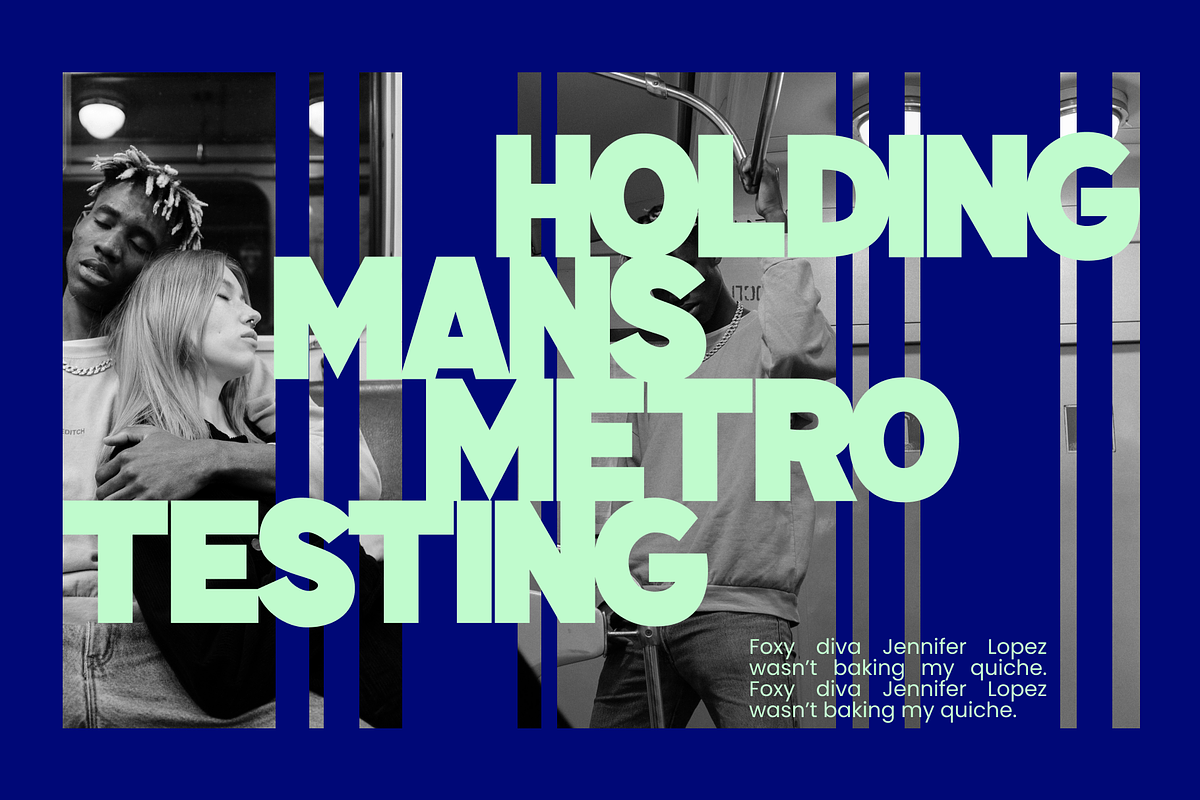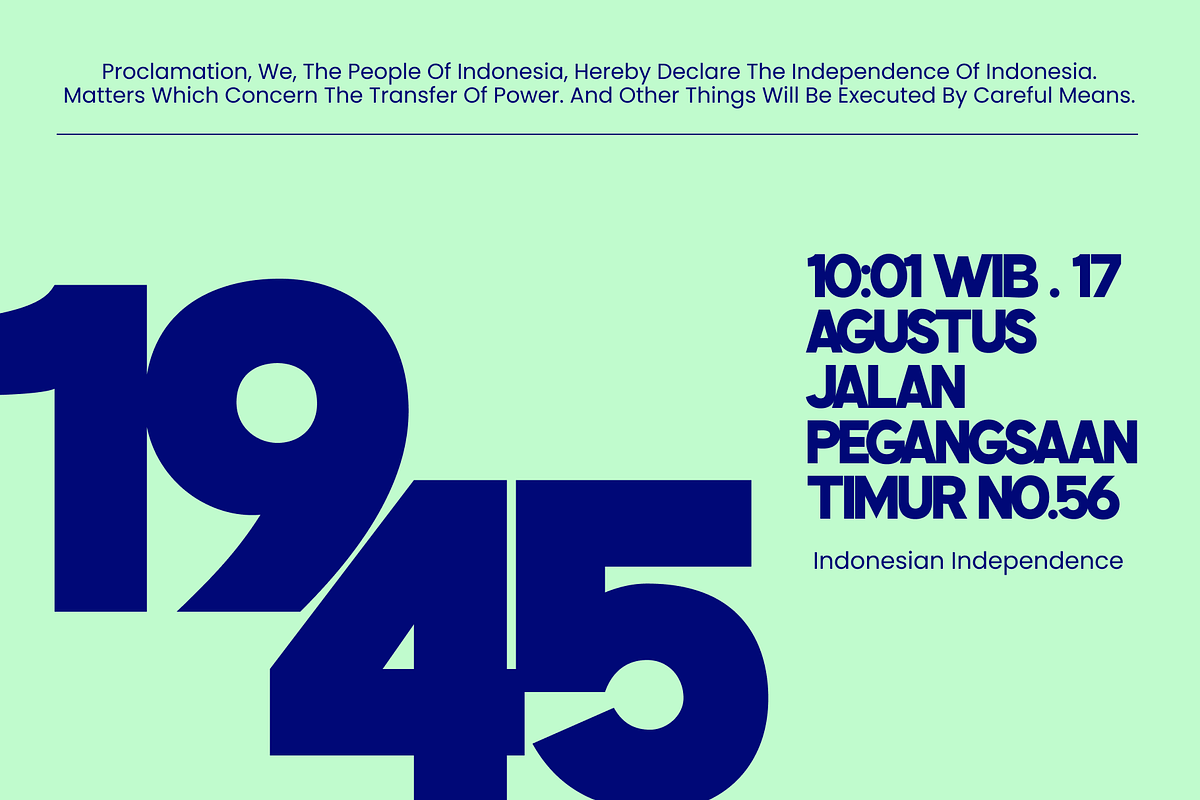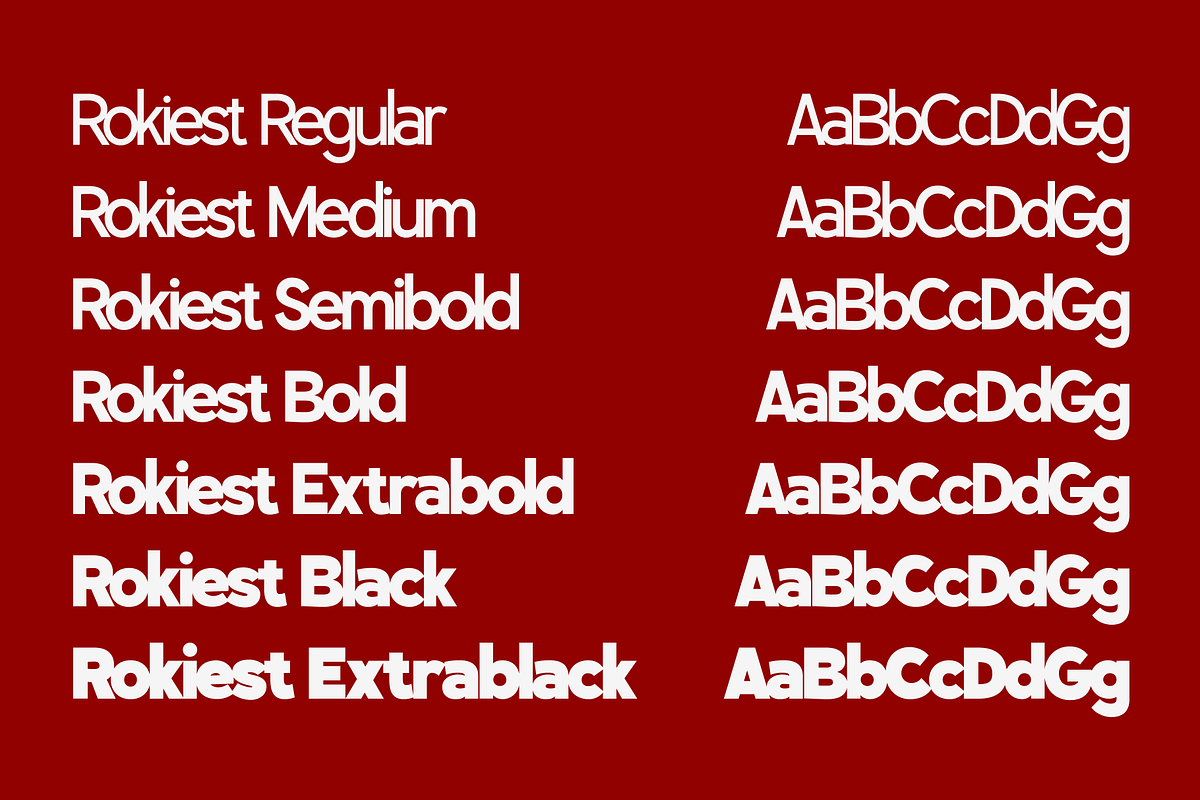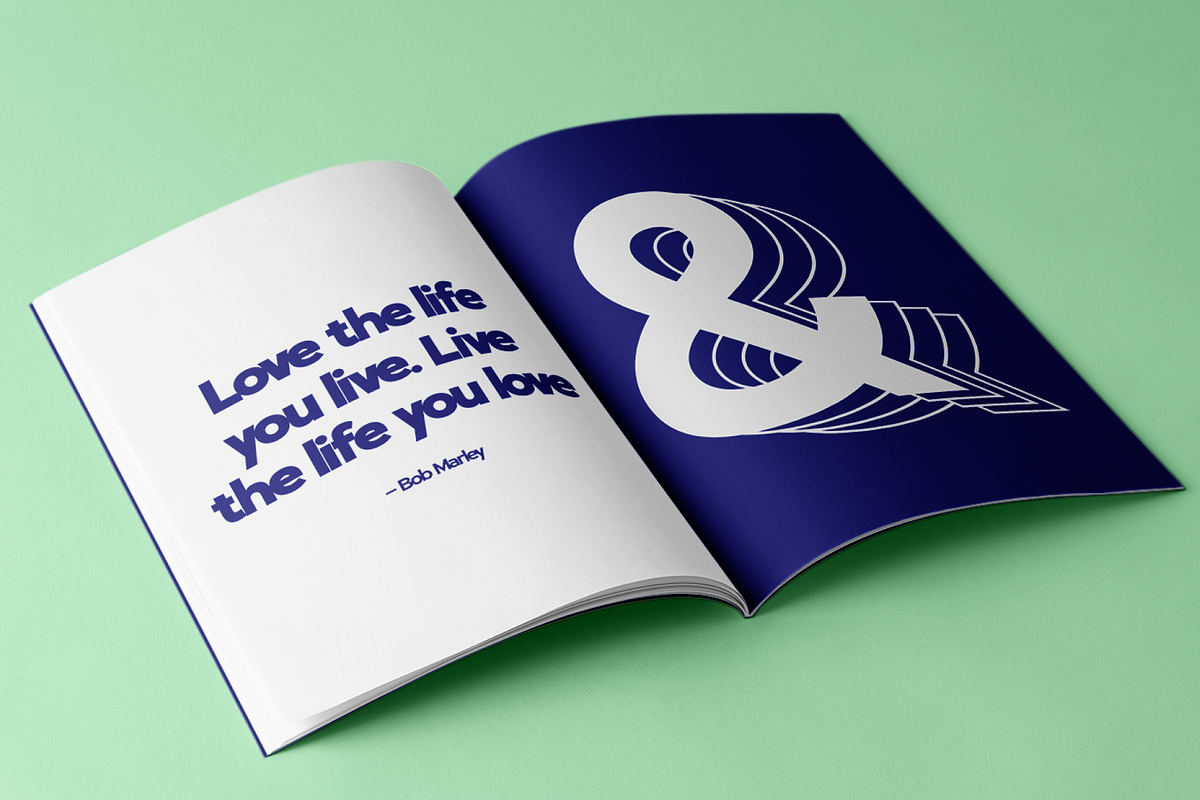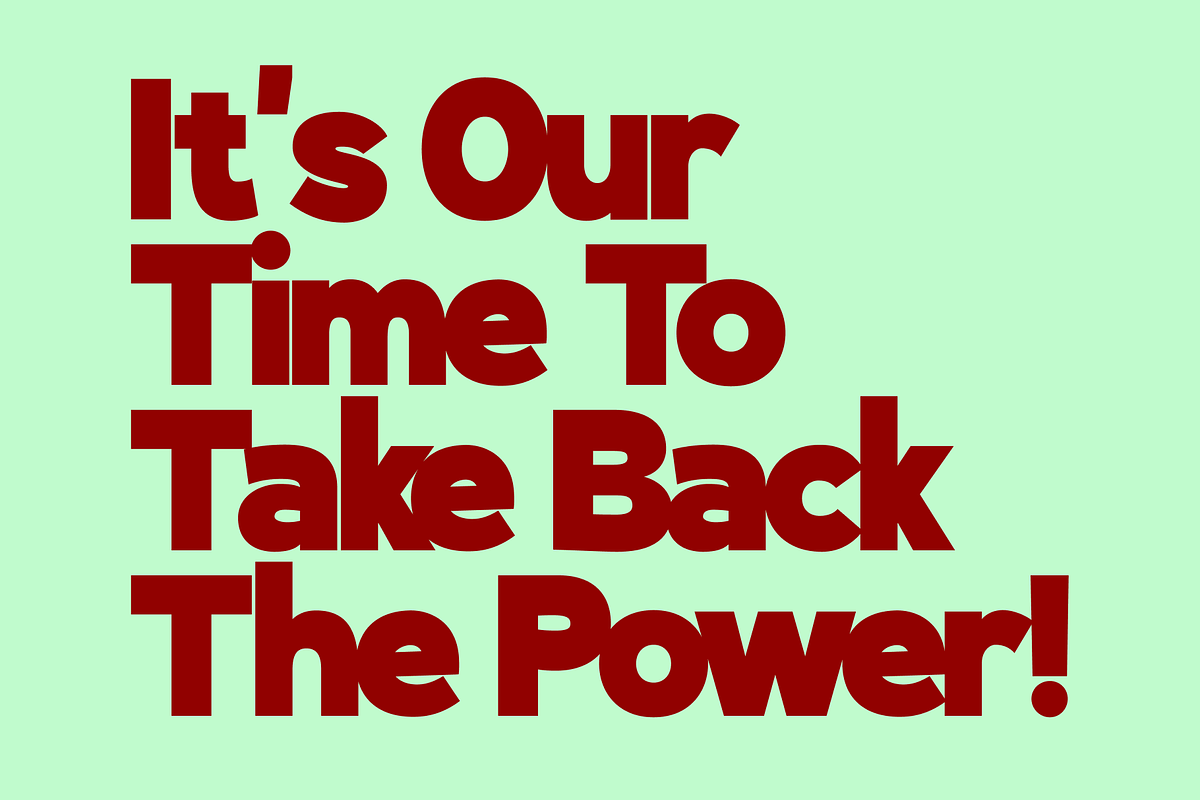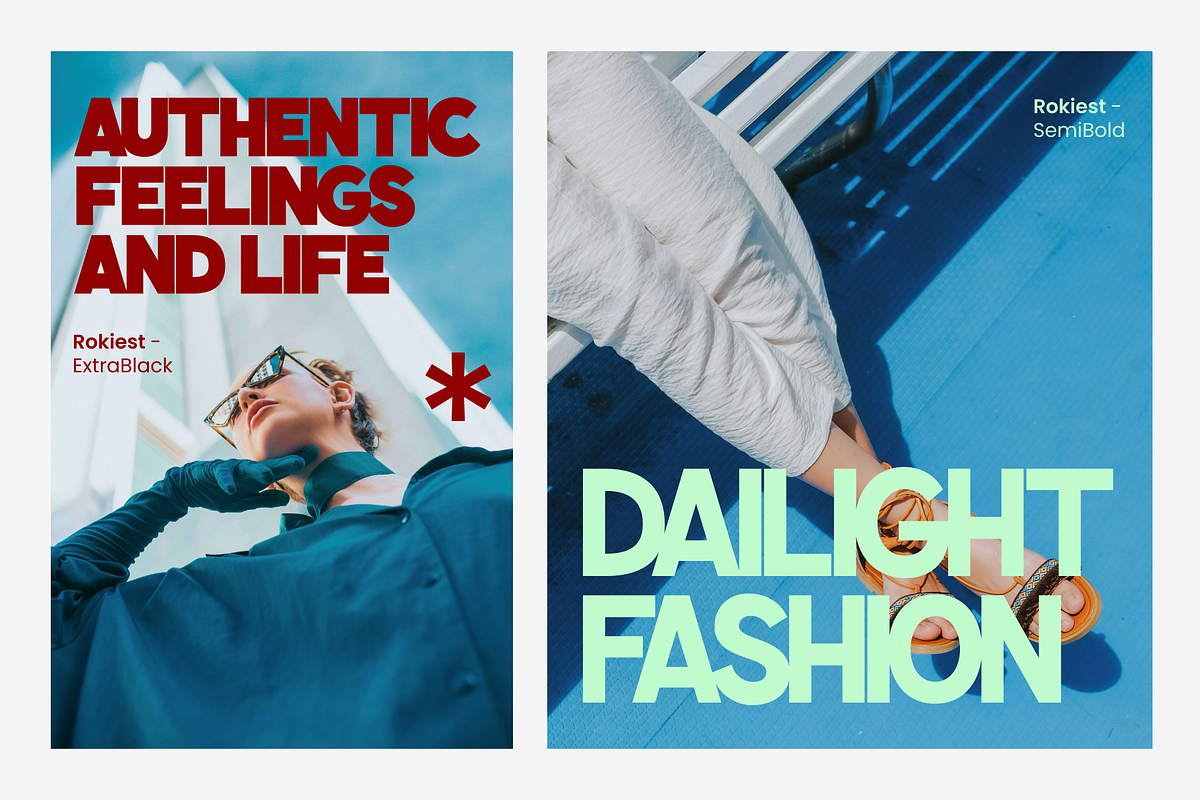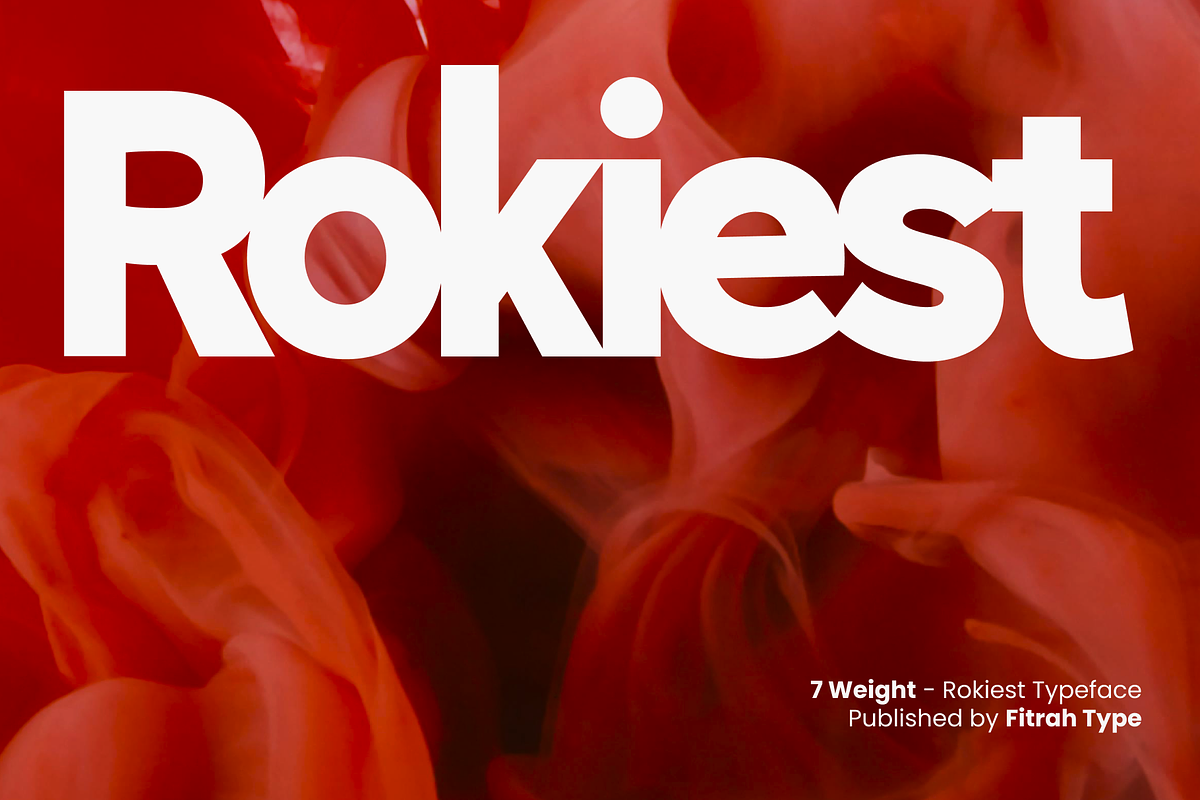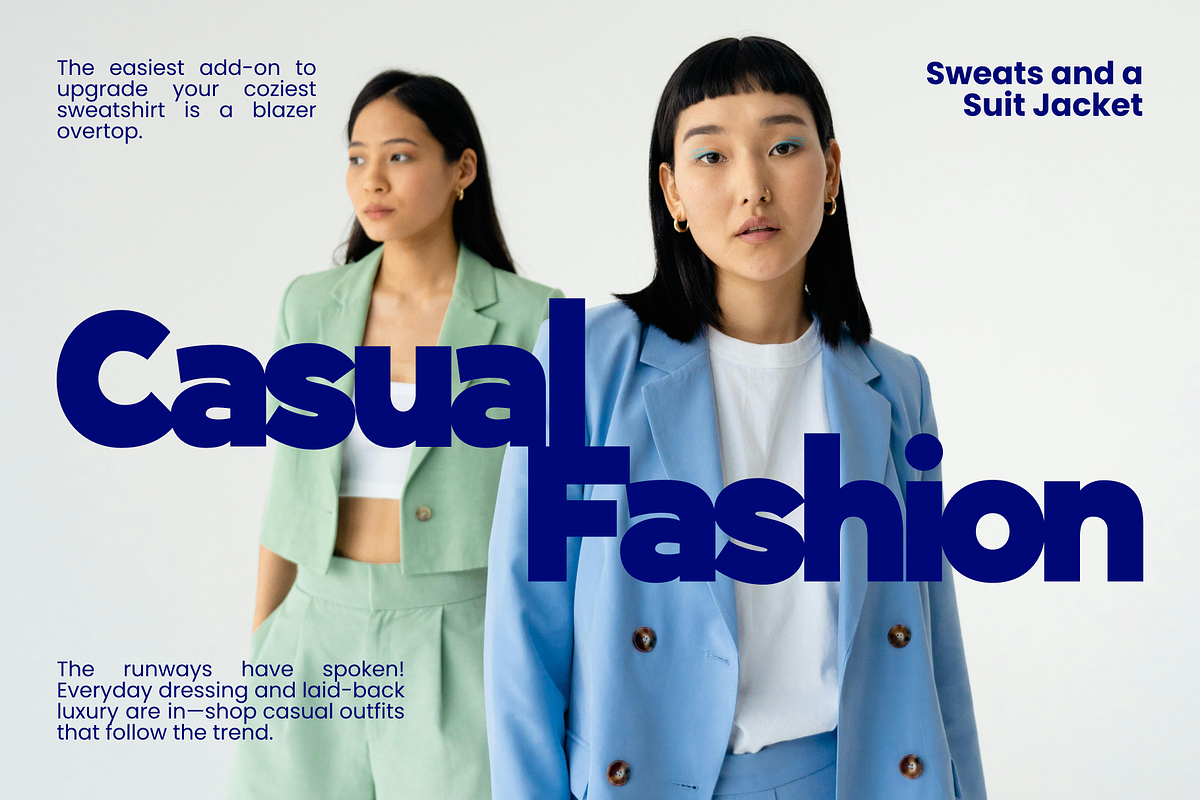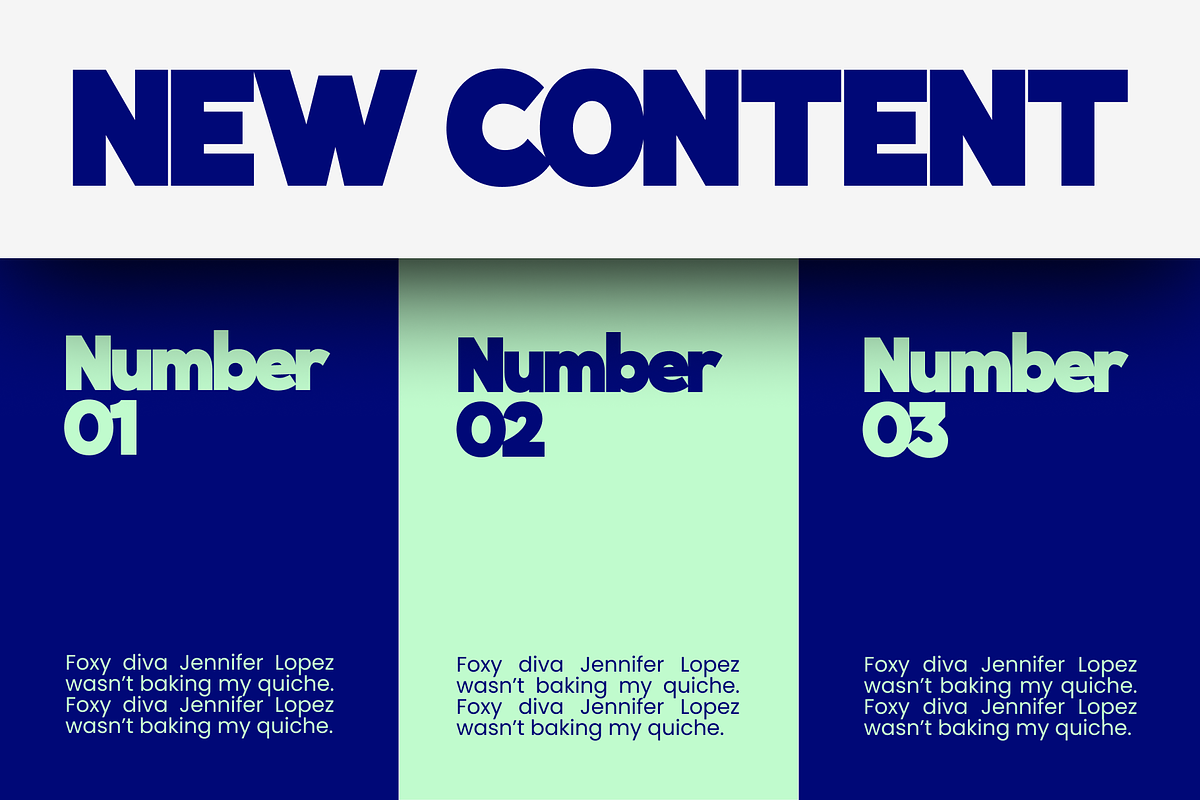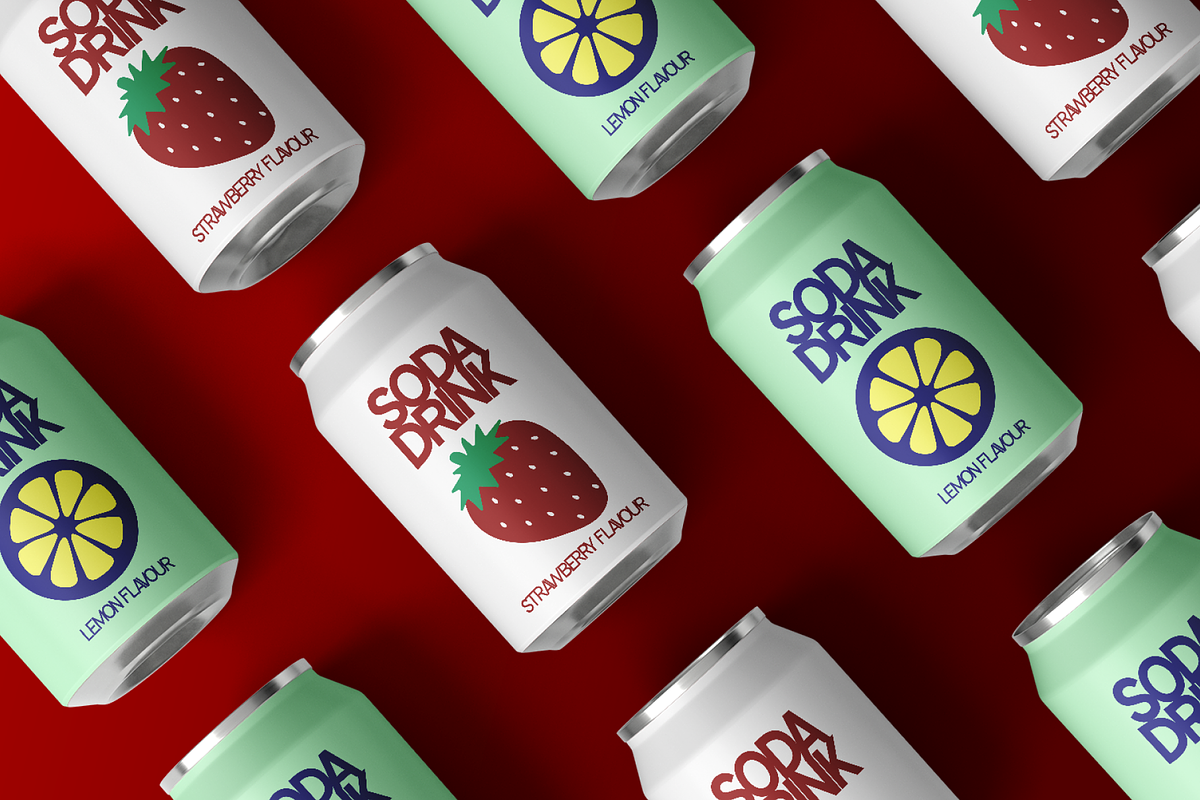
Rokiest Complete Family
Rokiest is a sans serif font that comes with 7 styles. Rokiest created in a simplicity, a minimalist and also looks elegant. The entire typography has been designed to work on large sizes.
This font ideal for designing merchandise, social media, marketing posts, product packaging & branding projects. Rokiest supports uppercase, lowercase, numerals and punctuation.